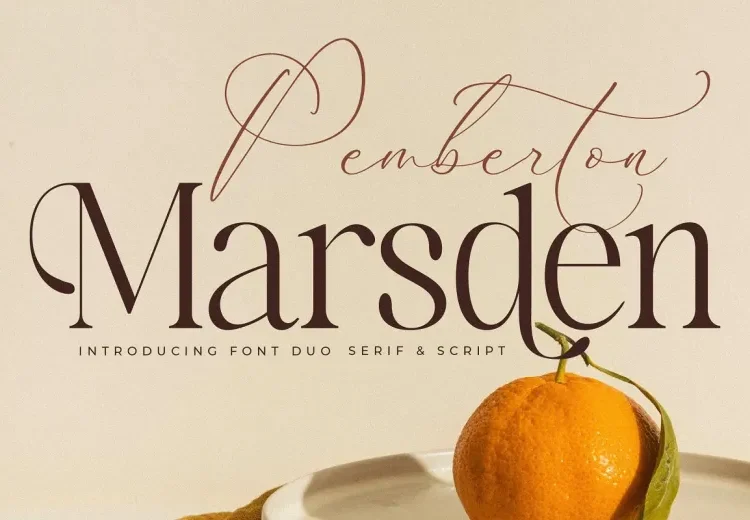
Pemberton Marsden Font
Pemberton Marsden is a sophisticated inverse script and serif font that seamlessly combines elegance with modernity. Its unique design makes it an excellent choice for a wide range of creative projects, allowing designers to craft visually stunning pieces that capture attention and convey class.
Key Features:
• Inverse Script and Serif Combination: Pemberton Marsden stands out with its intriguing blend of script and serif elements. This distinctive combination adds depth and character to your designs, making it perfect for projects that require a touch of sophistication.
• Contemporary Aesthetic: With its contemporary appearance, this font is designed to appeal to modern sensibilities while maintaining a timeless elegance. The clean lines and thoughtful design make it suitable for various applications, ensuring your work always looks polished and refined.
Ideal Applications:
• Classy and Elegant Logos: Use Pemberton Marsden to create memorable logos that embody the essence of luxury and sophistication. Its unique style can help your brand stand out in a crowded marketplace, making a lasting impression on customers.
• Movie and Book Title Designs: Capture the attention of your audience with striking title designs for films and books. The font’s elegance will enhance the visual appeal of your projects, making them more engaging and inviting.
• Fashion Brand Clothing Designs: Perfect for fashion-related projects, Pemberton Marsden adds a chic touch to clothing labels and brand identities. Whether you’re designing for a boutique or a high-end fashion line, this font will elevate your designs.
• Magazine Letters and Editorial Design: Enhance the layout of magazines and publications with stylish headlines and text that resonate with readers. The font’s versatility allows it to adapt seamlessly to various editorial contexts.
• Inspirational Quotes and Typography: Bring your quotes to life with Pemberton Marsden. Its artistic flair makes it ideal for wall art, social media posts, and print materials, ensuring your messages are communicated beautifully.
Additional Considerations:
• User-Friendly: Pemberton Marsden is designed to be accessible for designers of all skill levels, making it easy to incorporate into any project without sacrificing quality.
• Multilingual Support: This font includes a variety of characters and symbols, ensuring that your designs can reach a broader audience without losing their aesthetic appeal.